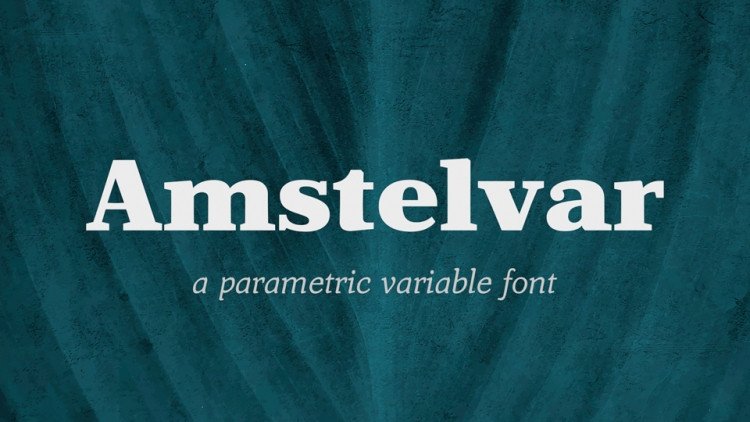
Amstelvar Serif Font Family
Amstelvar Serif Font Family includes a broad range of standard variables: weights from heavy to light, widths from wide to narrow, optical sizes from small to large, contrast, serif slope, and a few others which are currently on the drawing board.